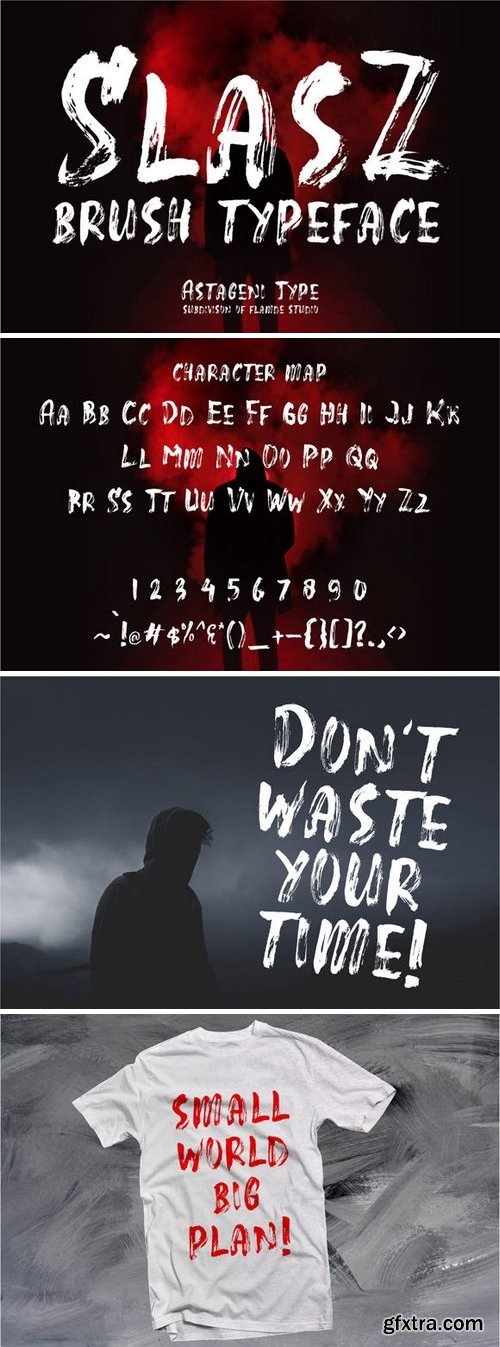
Slasz Brush 193650
The SlasZ is a handmade display font, made from a watercolor brush. It was carefully crafted in paper, scanned in high resolution and carefully traced for the best result,It’s perfect for apparel, quotes, logos, and much more1